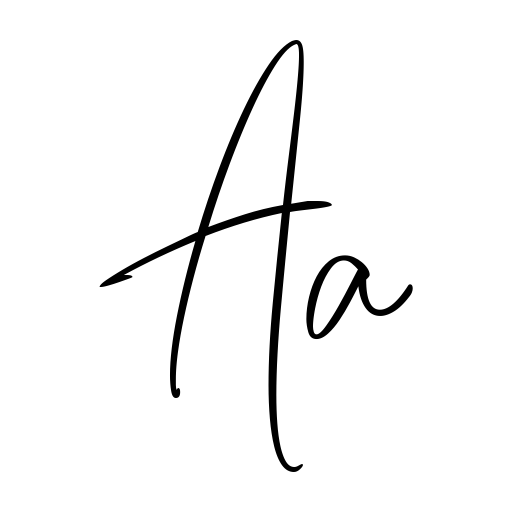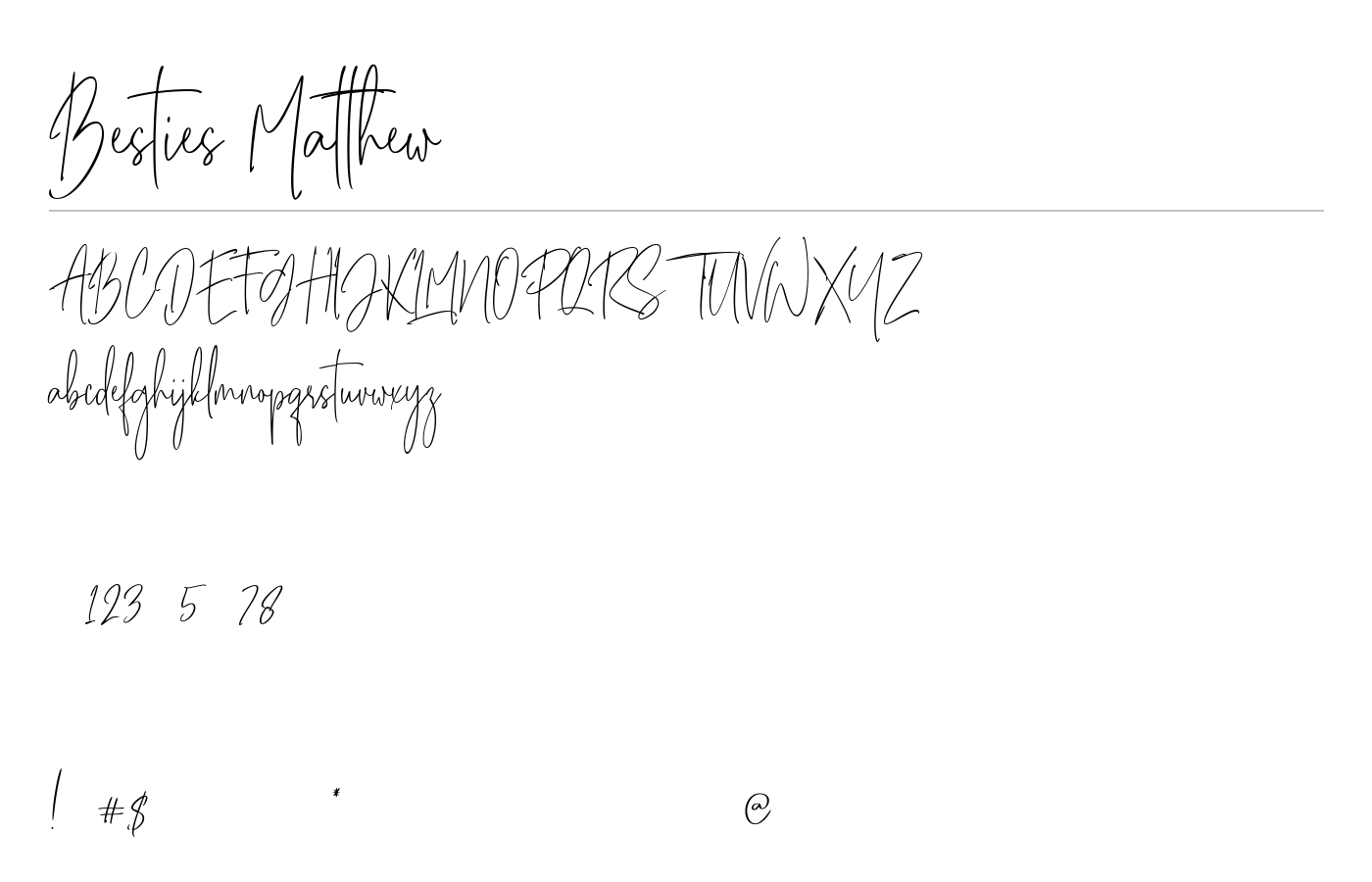
Besties Matthew is a delicate, handwritten script font featuring tall, slender letterforms with a casual yet elegant flow. Its fine weight and airy spacing give it a light, personal touch, making it ideal for invitations, branding, and creative projects that want to convey warmth and sophistication. This font shines in designs that need a friendly, graceful, and contemporary handwritten style.
Besties Matthew Font
About Besties Matthew Font
| Font family | Besties Matthew Font |